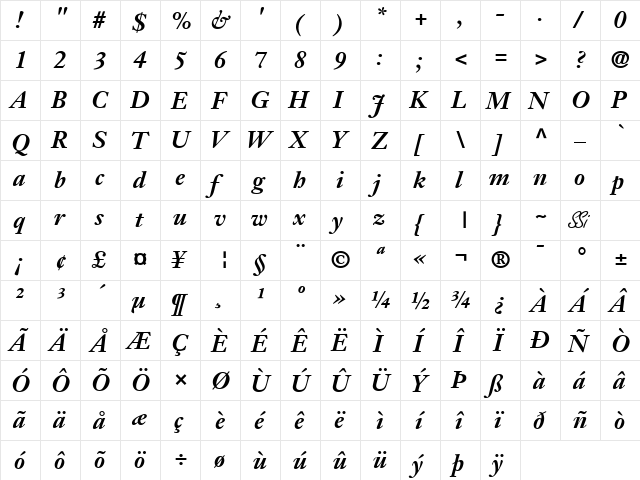
Janson SSi Bold Italic
Design Context for Janson SSi Typeface
Janson SSi takes a measured approach to typography — its balanced proportions and neutral character make it a reliable workhorse for both digital and print work. Its italic angle brings a sense of urgency and motion to the letterforms. The heavy weight commands attention and anchors typographic hierarchies.
Pro Tip: Use Janson SSi for emphasis, pull quotes, and subheadings where its slanted energy can add rhythm to the layout.